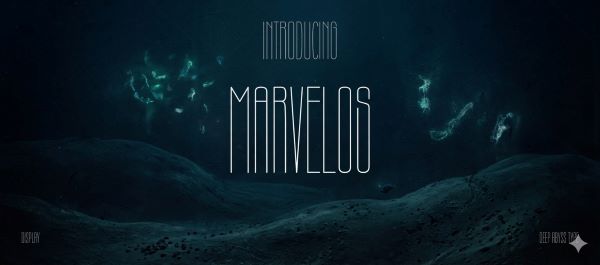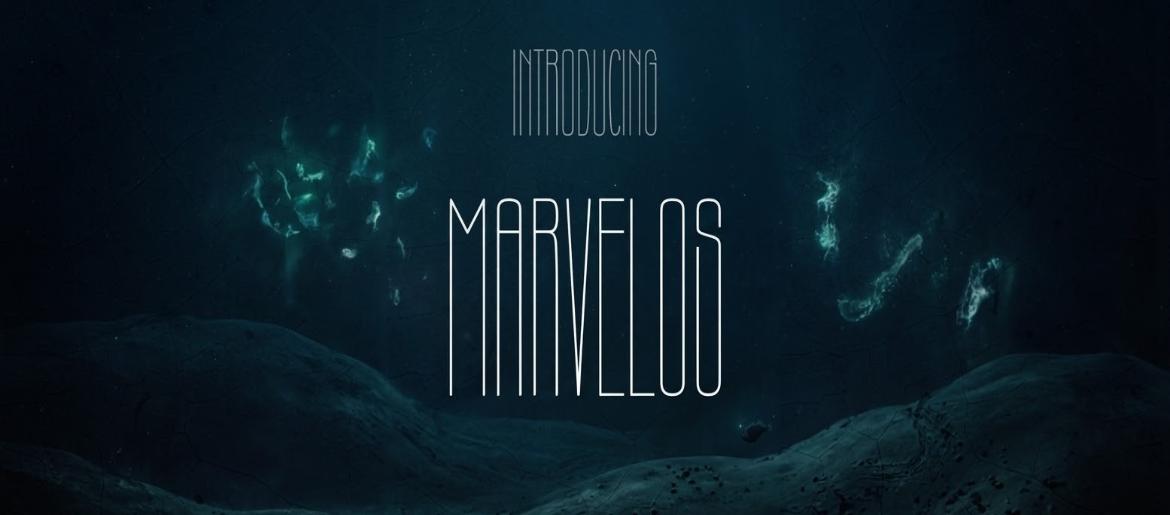
Marvelos Font
Marvelos is an ultra-condensed display typeface from Akbaru Type that leans hard into the formal logic of its own constraints — every character is pulled as tall and thin as it can go, creating a vertical tension that makes even a single word feel architectural. The strokes are fine and consistent, the spacing tight without collapsing, and the overall impression one of austere minimalism: this is a typeface that succeeds by doing almost nothing except occupying vertical space with confidence.